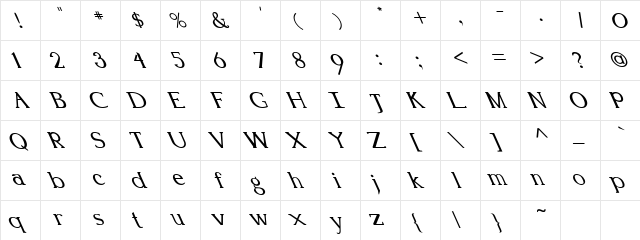
Ken Looking Left Regular
Design Context for Ken Looking Left Typeface
Ken Looking Left offers clean, dependable letterforms without strong stylistic allegiance, making it a practical choice for designers who need flexibility.